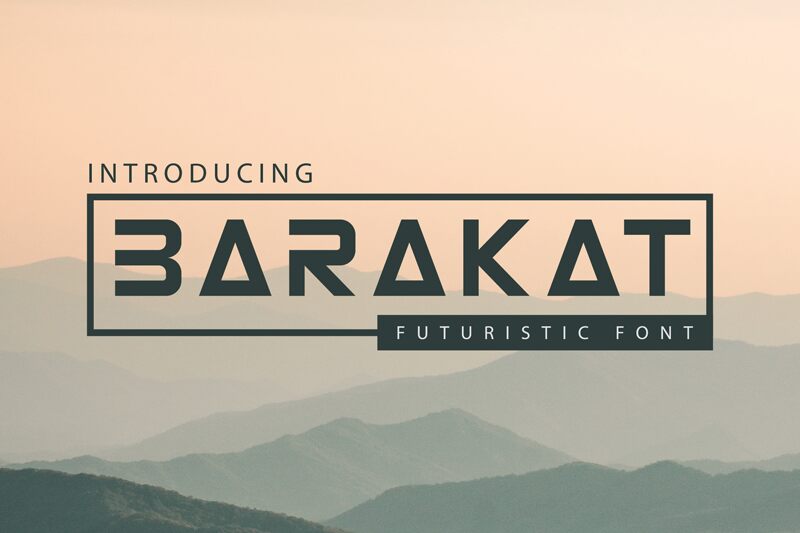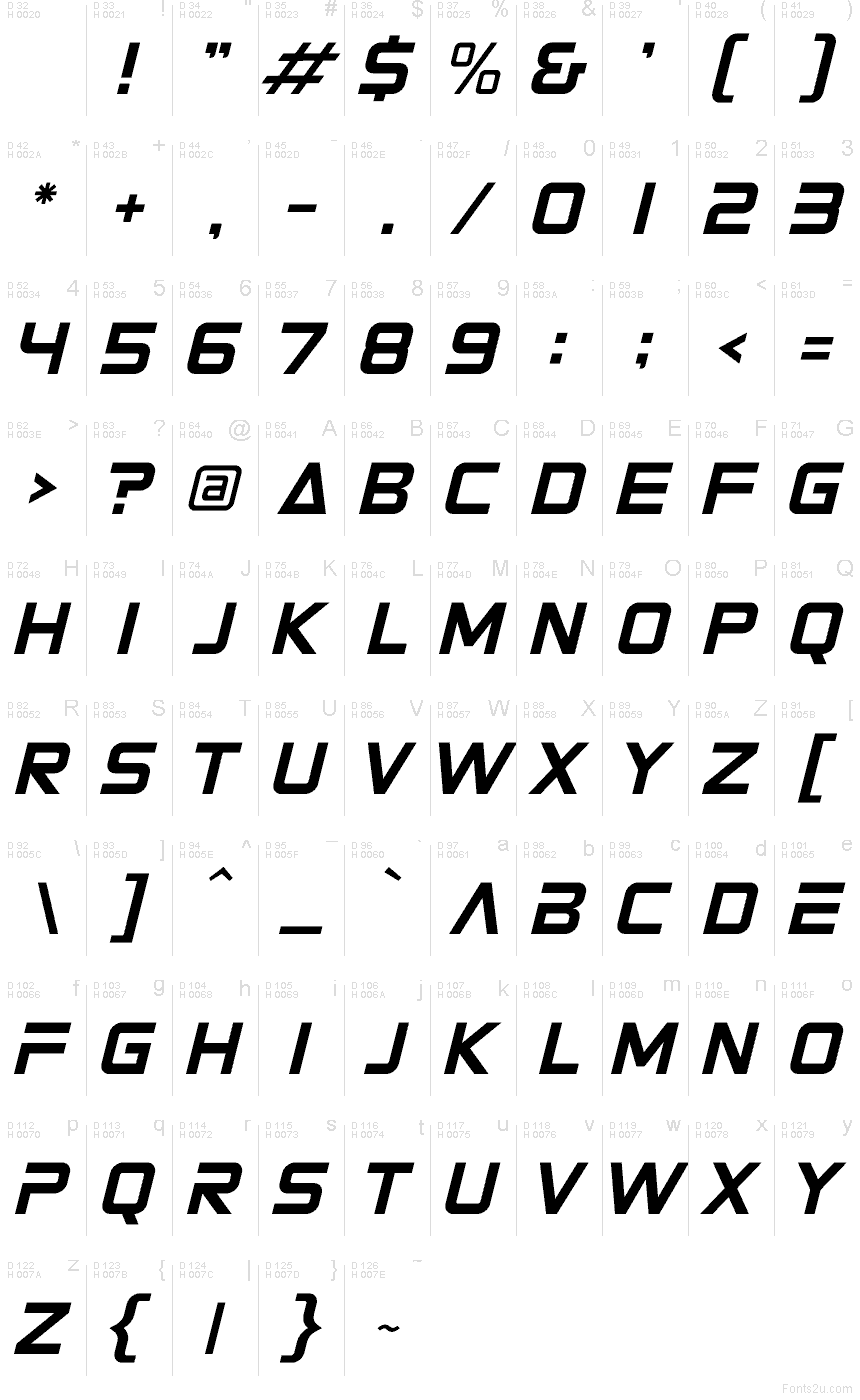
Barakat Italic
Barakat Italic font by Muhammad Nugraha of Denu Studios cuts through the noise with a fast, slanted stance and hard-edged geometry. The letters feel machined—sharp angles, chunky weight, and those sliced-in gaps that read like speed vents. It’s a free sans serif font, and the Barakat typeface brings instant motion even in a single word.
Using Barakat Italic, you’ll get punch on esports branding, racing posters, streetwear tags, tech-event flyers, gaming thumbnails, YouTube headers, product decals, and bold logo locks. Keep the tracking slightly open so the dark strokes can breathe, and pair it with a calm neutral sans for body copy to let this free font stay in the spotlight.